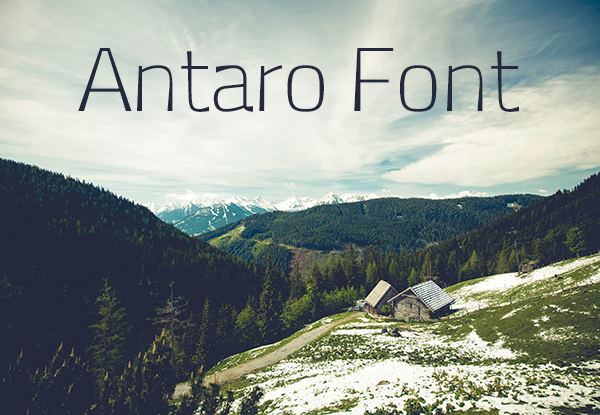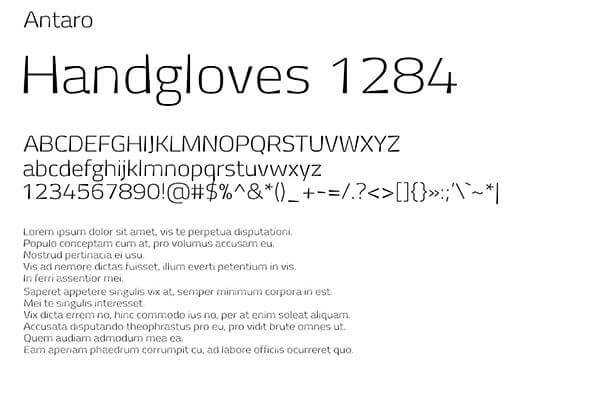
Antaro
About Antaro Font
The Free Antaro Font, created by the talented guys from Eldamar Studio, it’s a wonderful font with a unique, detailed and handmade look. These fonts looks amazing in all caps with a wide-set spacing if you want to try a classy look, or beautiful on its own in capital and lowercase letters for something completely timeless. Perfect for gorgeous logos, displays, headers, invitations, save the dates, weddings, titles, web layouts and branding, etc.